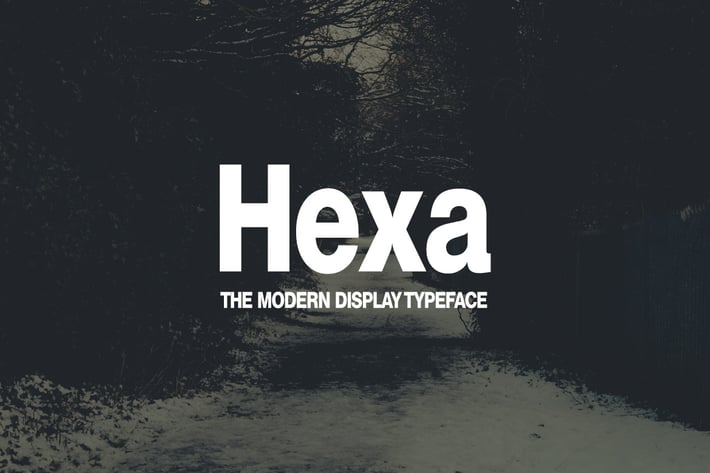
HEXA - Modern Display Typeface
HEXA is a modern typeface for headlines & display usage. The font has a unique essence when it comes to it's presentation. HEXA comes with a single weight, perfect for it's purpose.